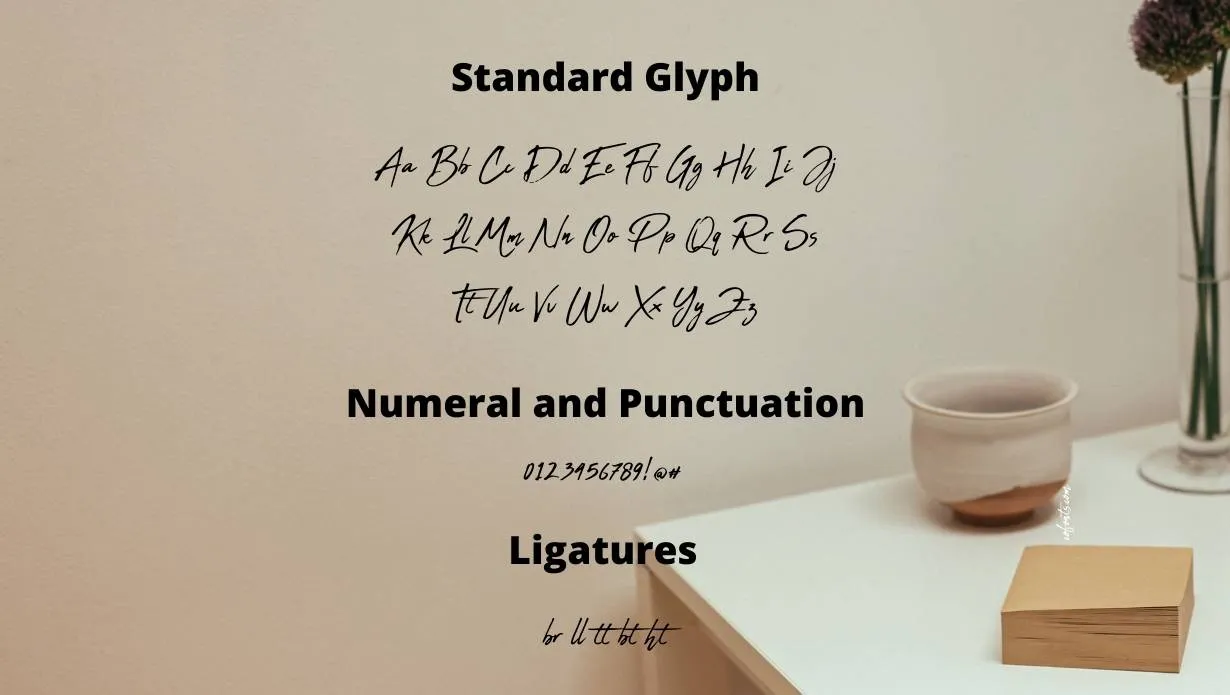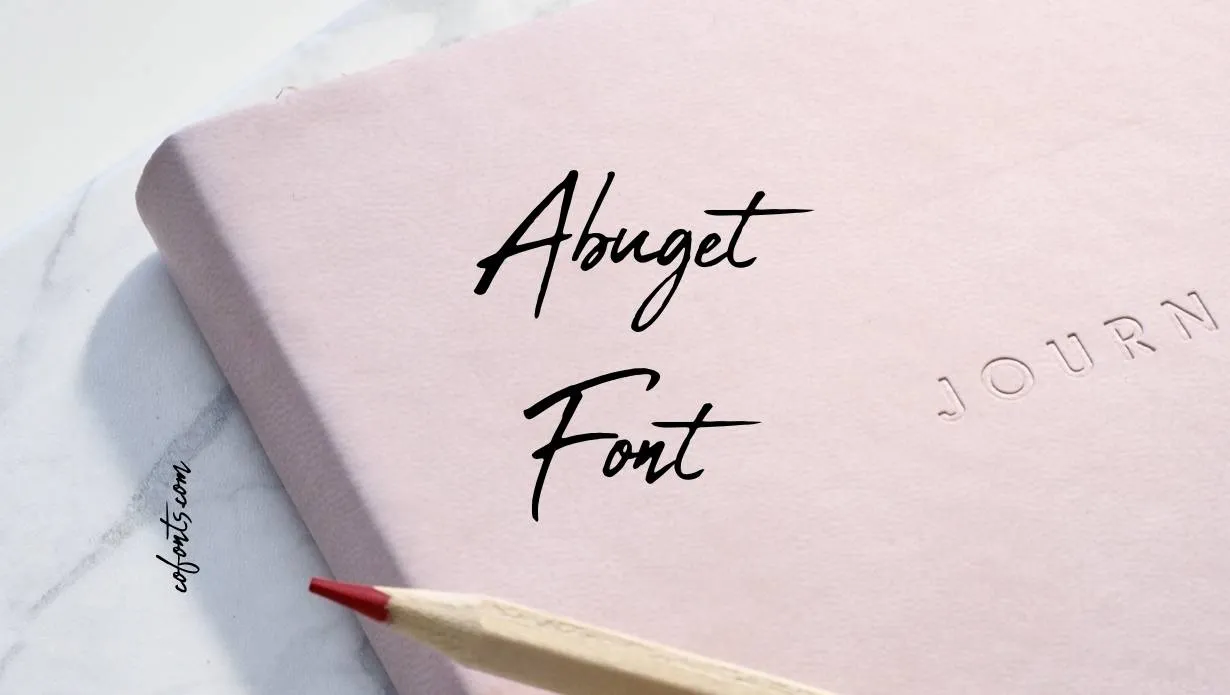
Introducing you with a wonderful and amazing style of texture design that is called Abuget Font. This is a wonderful design and a member of the script typeface. that has a unique and outstanding design of handwritten texture. This font had designed because the designer has inspired by handwritten textures. It is designed by a well-known typeface designer, who is known as Syaf Rizal.
This beautiful design had released in January 2017 and has a regular style of weight. This typeface has more than three hundred glyphs, with matching characters, punctuations, numbers, and language supports. The morning glory font is a similar font to this typeface.
Usage of Abuget Font
This lovely style of unique typeface is designed for an amazing project, it is eye-catching and beautiful for all styles of textures. This creative style of the font gives an amazing result for the marketing of products. You can use this typeface for any attractive design.
Abuget font is a stunning and wonderful typeface for web and print media. This antique style of texture is good for wedding hall decorations, cakes, party celebrations, and stage designs. You can use this typeface for web designing, and graphic and logo designs.
Name | Abuget Font |
Style | Handwritten |
Designer | Syaf Rizal |
What texture goes well with Abuget?
Various textures get match this typeface, but the most pairing and similar texture to this typeface is the beautiful creatures font.
What is an Abuget typeface?
Abuget Font is a wonderful design and a member of the script typeface. that has a unique and outstanding design of handwritten texture
Is Abuget a logo typface?
Yes, this is a script style of typeface, which is amazing for any style of logos and graphic design. Because many designers use its many projects.
Who designs Abuget Typeface?
This is a beautiful and advanced typeface, that had designed by a well-known typeface designer, who is known as Syaf Rizal.